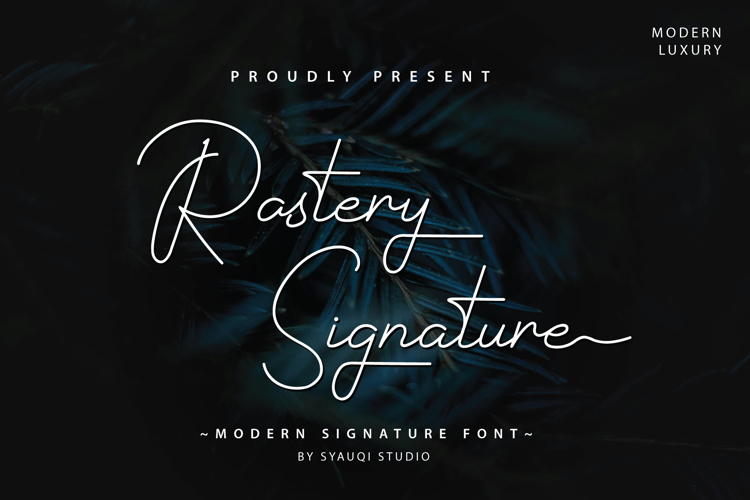
Rastery Signature Font
Rastery Signature" font is a meticulously crafted piece of typography that embodies understated elegance and refinement. By combining uppercase beginnings and lowercase endings, this font offers a subtle but impactful way to customize your text. Its versatility makes it suitable for a range of design applications, from high-end invitations to sophisticated branding materials and beyond.